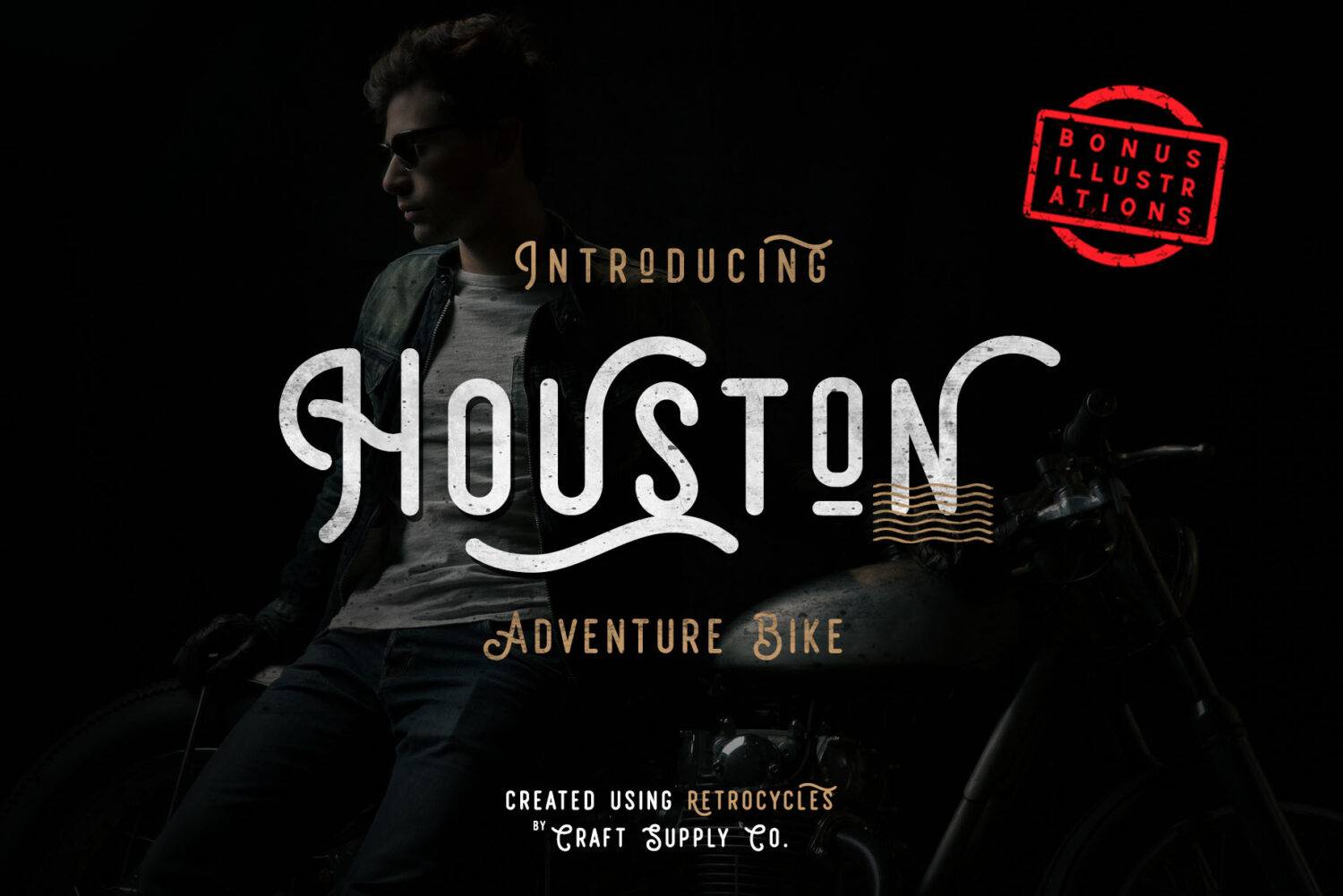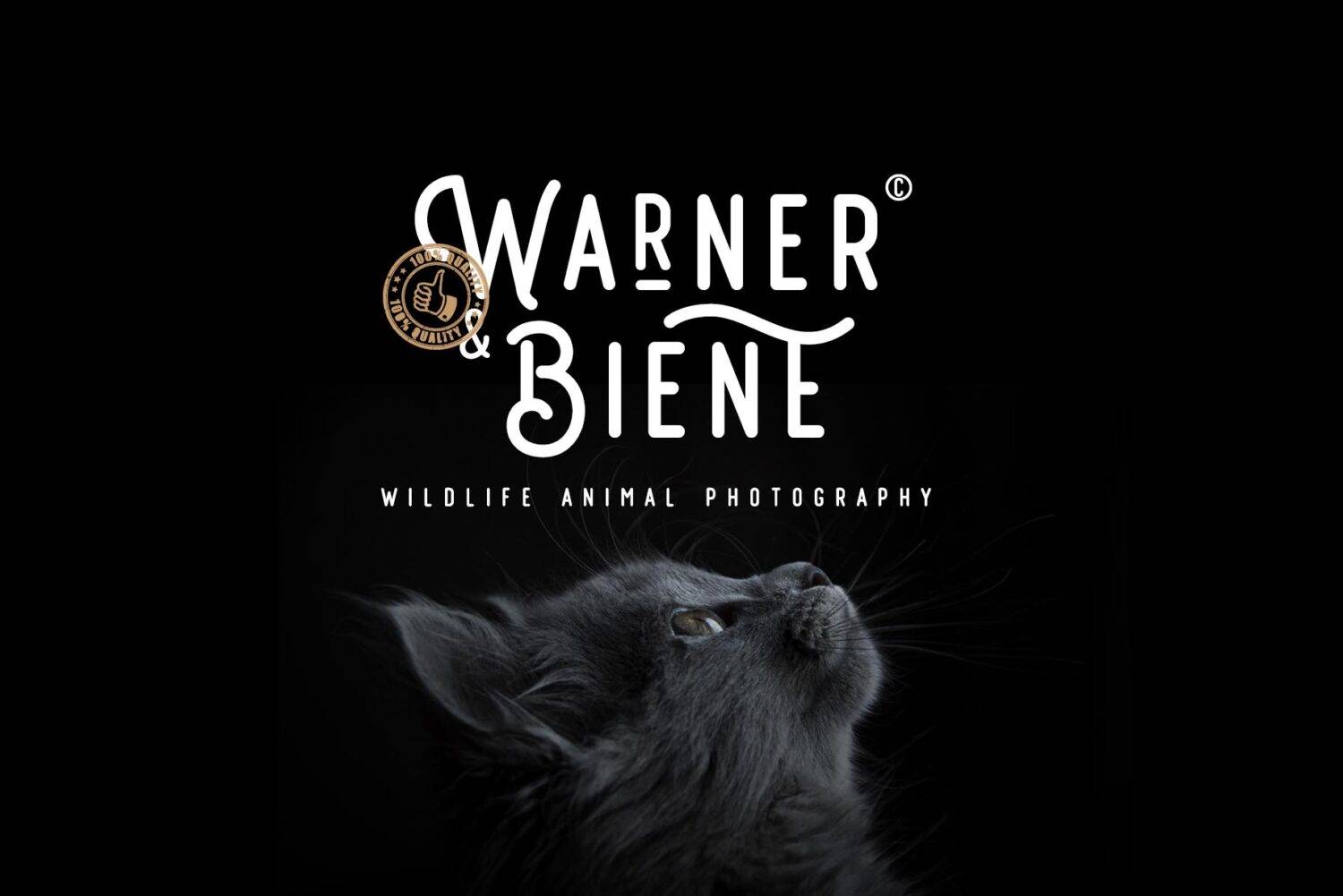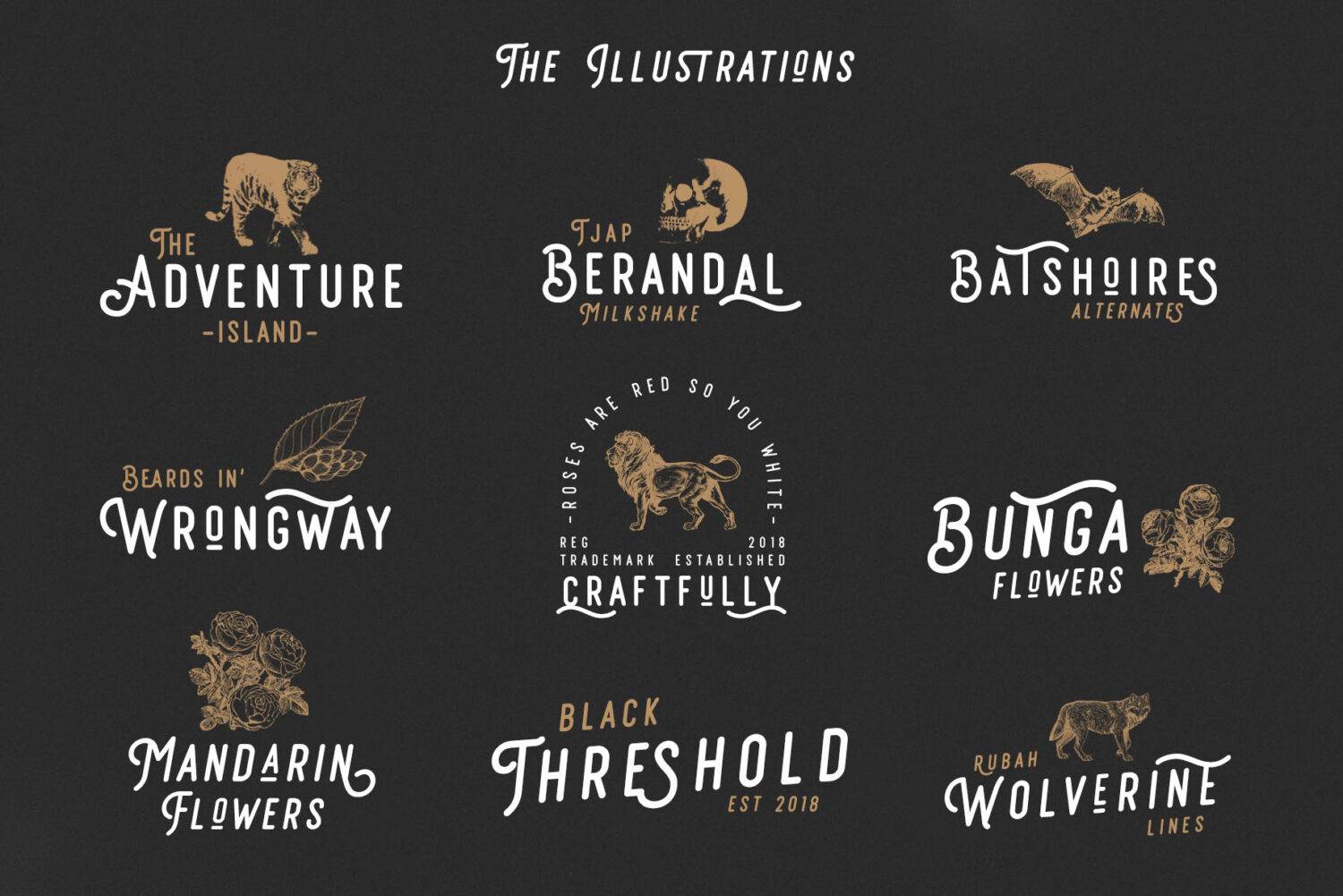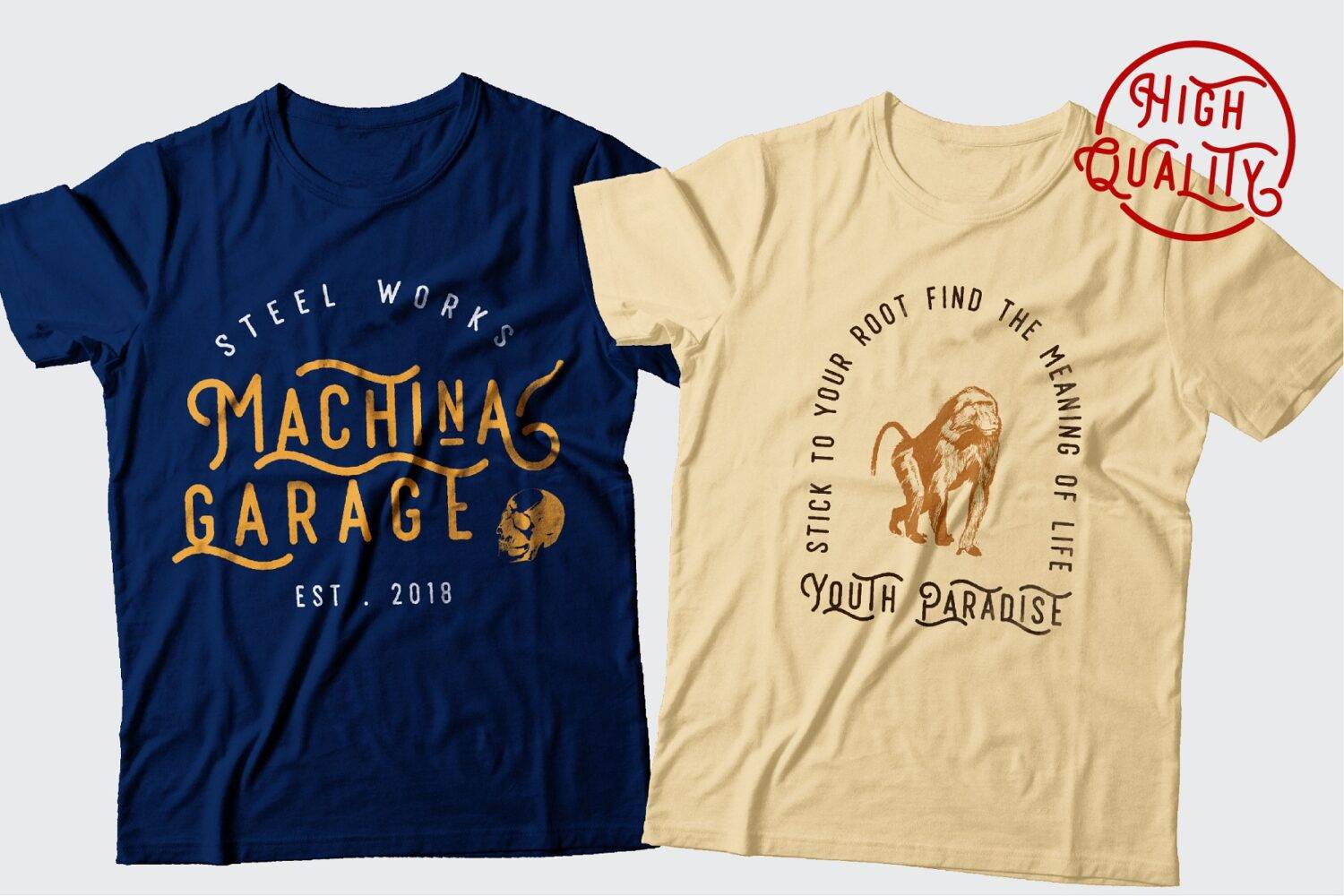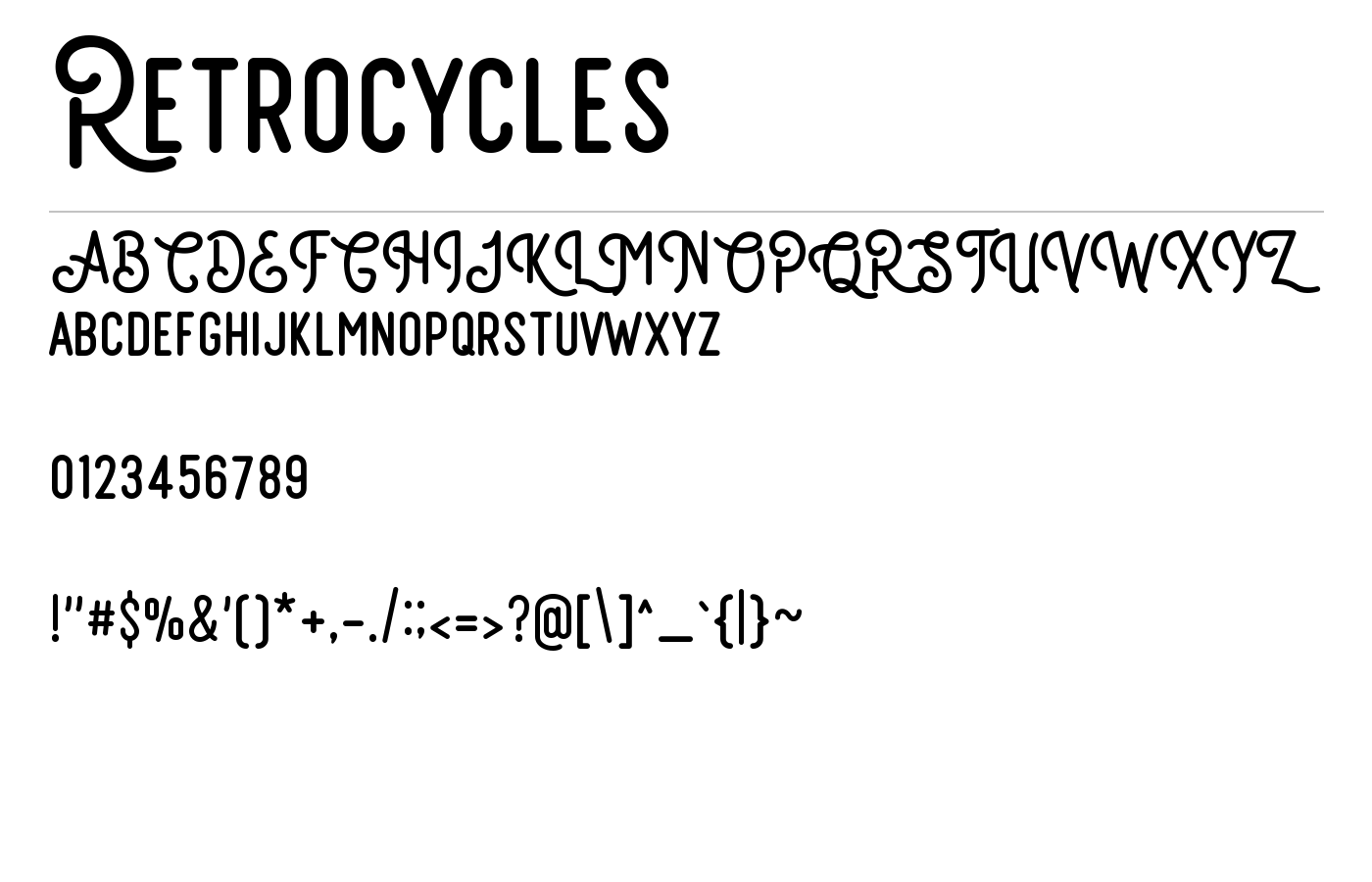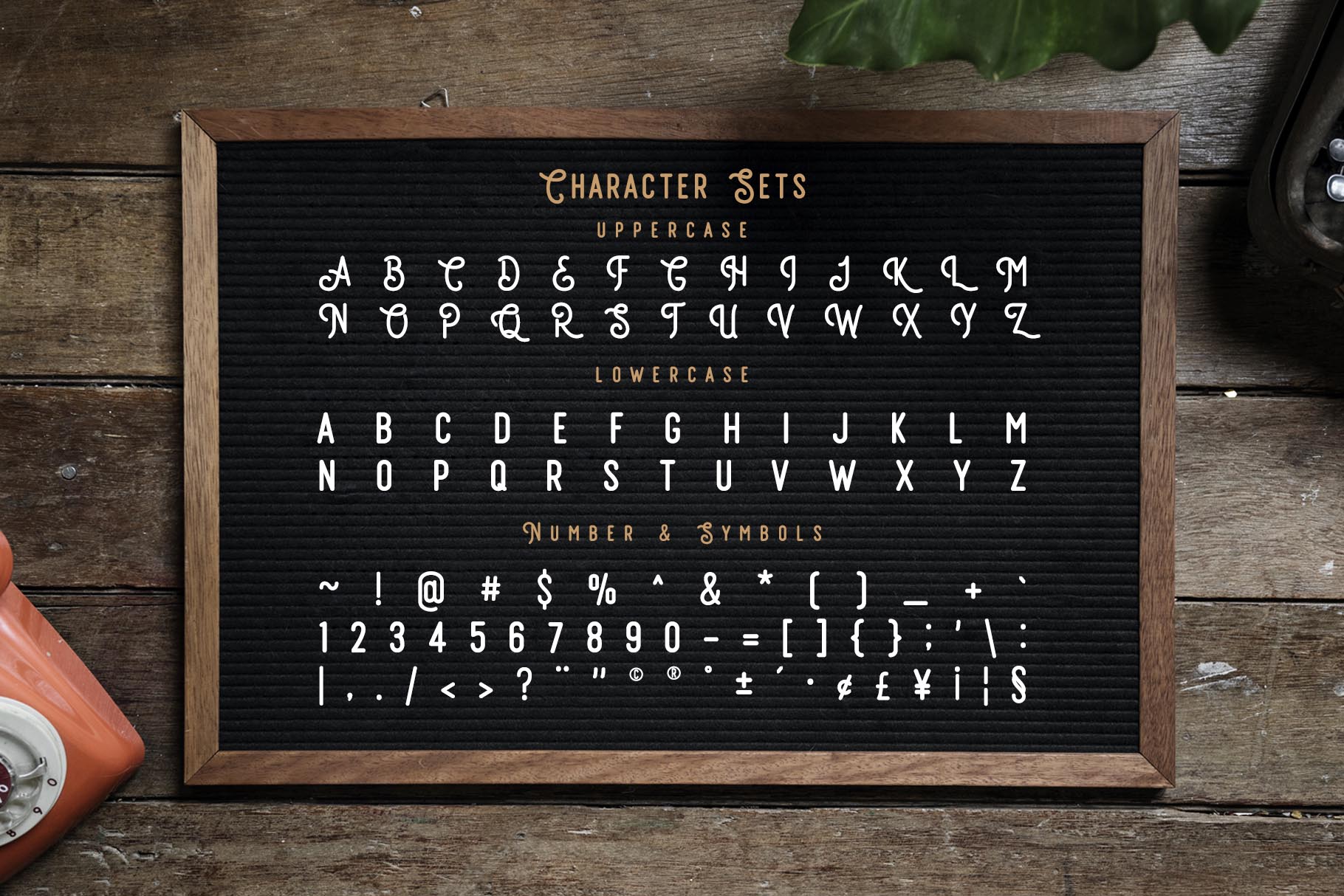
Retrocycles is a stylish sans serif font with a retro vibe, combining clean, narrow letterforms with playful, decorative alternates that bring a sense of nostalgia and creativity. Its rounded edges and uniform stroke weight make it friendly and approachable, perfect for designs that want to blend vintage charm with modern simplicity. This font works wonderfully for logos, branding, headlines, and any project seeking a unique yet readable character.
Retrocycles
About Retrocycles
| Font family | Retrocycles |
| Designer | Craft Supply Co. |